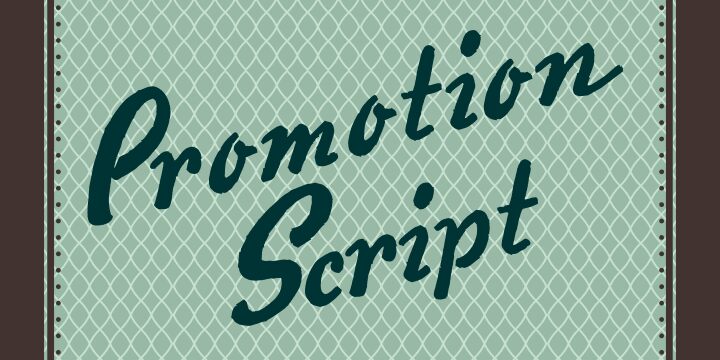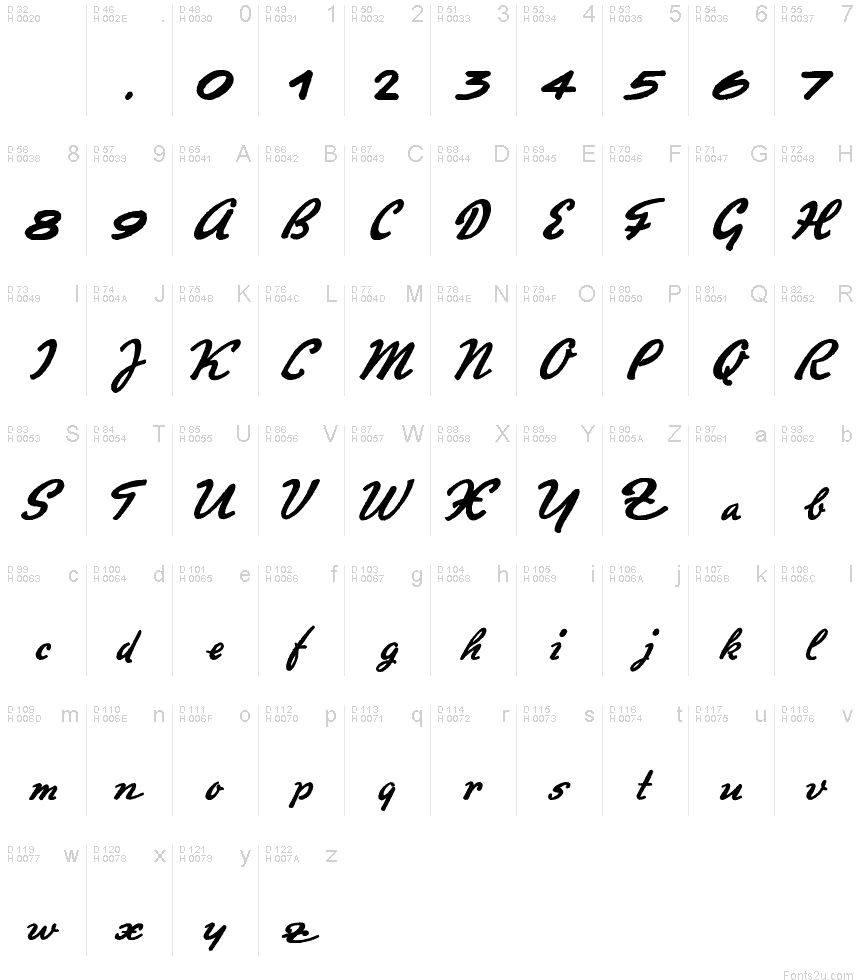
Promotion Script by Paulo W. is a free handwritten font with a forceful, fast-moving signature style. Broad, dark strokes narrow abruptly into fine joins and pointed flicks, giving the connected letters an uneven pace and a distinctly personal finish.
Independent fashion and music brands are its clearest audience. The emphatic lettering suits album artwork, apparel graphics, event posters, and product packaging, where its oversized loops and sharp trailing strokes can become part of the surrounding illustration rather than merely naming it.